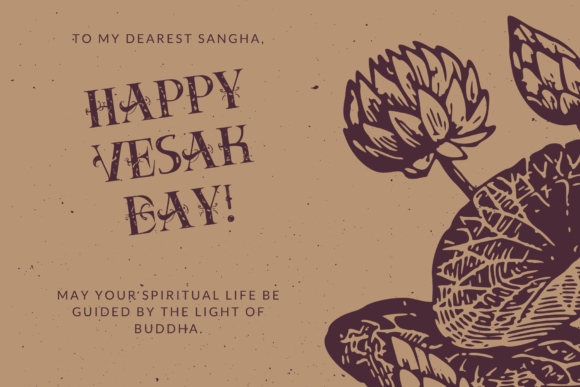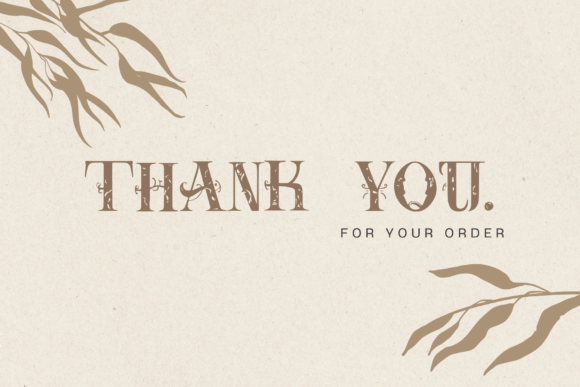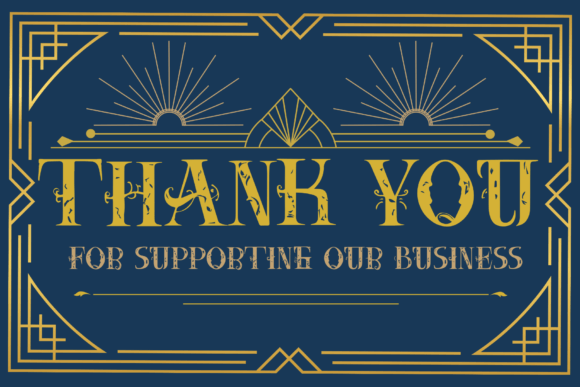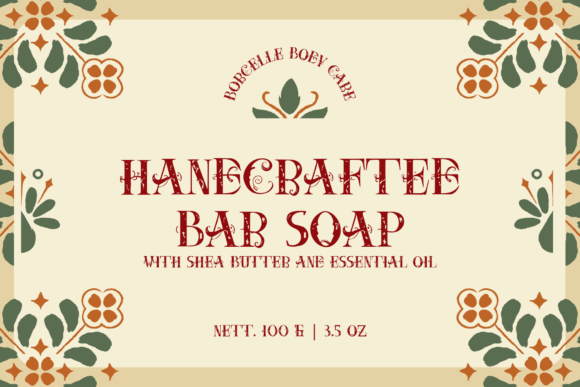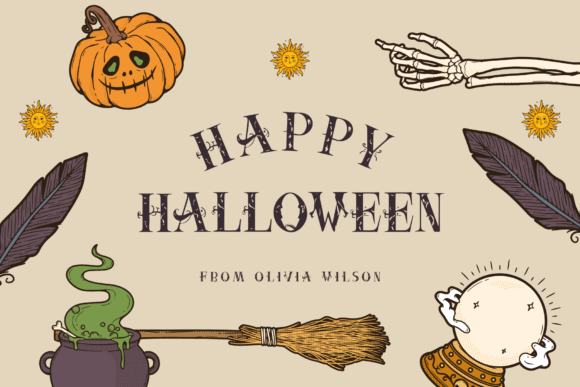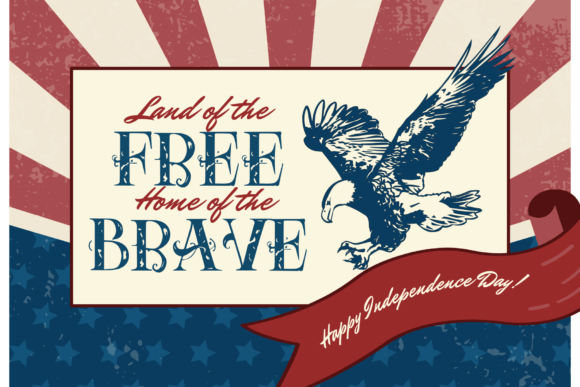
Ethereal Palace Font: Regal Elegance for Your Design Projects
Are you looking for a typeface that exudes grandeur, elegance, and sophistication? Look no further than the Ethereal Palace Font. This stunning typeface is inspired by the opulence and splendor of vintage royal aesthetics, making it perfect for designers and crafters seeking to add a touch of regal charm to their projects.
The Essence of Ethereal Palace
Ethereal Palace is a masterfully crafted typeface that embodies the essence of bygone eras. Its intricate detailing and sophisticated design evoke the grandeur of vintage royal palaces, transporting your audience to a world of luxury and refinement. Whether you’re working on film titles, posters, or various design projects, Ethereal Palace is the perfect choice for creating a majestic and memorable impression.
Key Features of Ethereal Palace Font
- Intricate Detailing: Ethereal Palace boasts intricate details that set it apart from other typefaces. Its ornate flourishes and distinctive characters make it an ideal choice for designers seeking to add a touch of elegance to their projects.
- Sophisticated Design: The typeface features a sophisticated design that is reminiscent of vintage royal aesthetics. Its classic look and feel make it perfect for creating a sense of nostalgia and timelessness.
- Regal Charm: Ethereal Palace exudes regal charm, making it perfect for designers seeking to create a sense of luxury and refinement in their projects.
- Versatility: The typeface is versatile and can be used for a wide range of design projects, including film titles, posters, logos, and more.
Perfect for Design and Craft Projects
Ethereal Palace Font is perfect for designers and crafters working on a variety of projects, including:
- Film Titles: Add a touch of grandeur and elegance to your film titles with Ethereal Palace. Its sophisticated design and intricate detailing make it perfect for creating a memorable and impactful impression.
- Posters: Create stunning posters that evoke the opulence and splendor of bygone eras with Ethereal Palace. Its regal charm and classic look make it perfect for promoting events, products, or services.
- Logos: Use Ethereal Palace to create a sophisticated and elegant logo that reflects your brand’s values and personality.
- Stationery: Add a touch of luxury and refinement to your stationery with Ethereal Palace. Its intricate detailing and ornate flourishes make it perfect for creating a sense of sophistication and elegance.
Ethereal Palace Font is a stunning typeface that embodies the grandeur and elegance of vintage royal aesthetics. Its intricate detailing, sophisticated design, and regal charm make it perfect for designers and crafters seeking to add a touch of luxury and refinement to their projects. With its versatility and timeless beauty, Ethereal Palace is sure to become a favorite in your design arsenal.